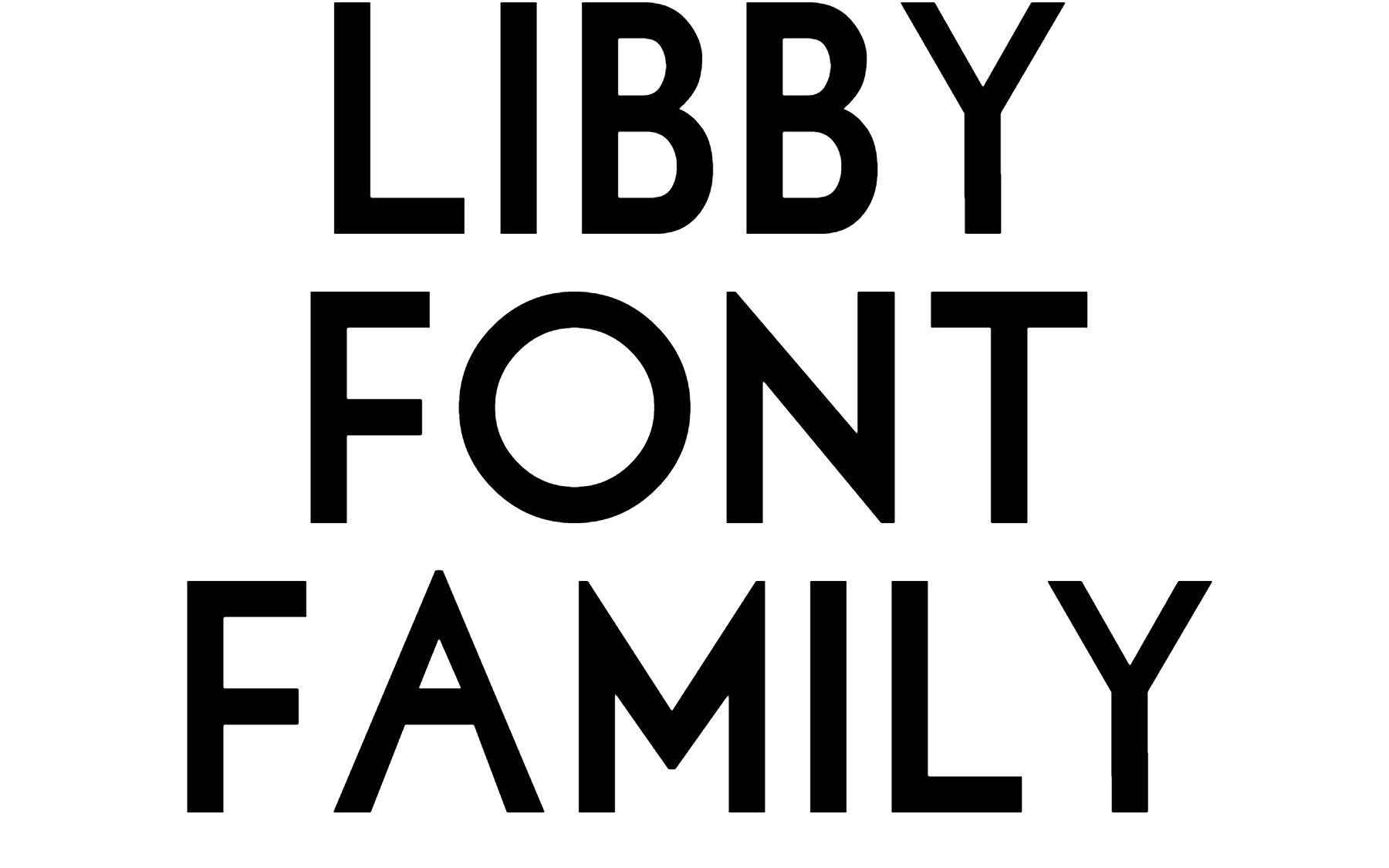
Libby Font Family
Libby Font Family is a sans serif font (2012). Simple, open letter shapes keep it easy to read at almost any size, from app buttons to big headlines. You get three styles in one free ZIP, and the preview above lets you test each one before you download.
- Font styles: 3 (Regular, Bold and Heavy)
- Weights: Regular (400) to Black (900)
- Glyphs: 55 in the Regular style
You get every letter from A to Z in both cases and all the numbers from 0 to 9, which means Libby Font Family can handle full sentences, dates and prices. Common punctuation such as !, ? and $ is included as well. It doesn't include accented letters such as é or ñ, which makes it an English-only font.
Libby Font Family is a natural fit for websites, app screens and clean logos. It works for headings and body text alike. If the download has several weights, use a heavier one for titles and a lighter one for paragraphs. Because the family has more than one style, you can mix them in a single design for headings, subheadings and highlights.